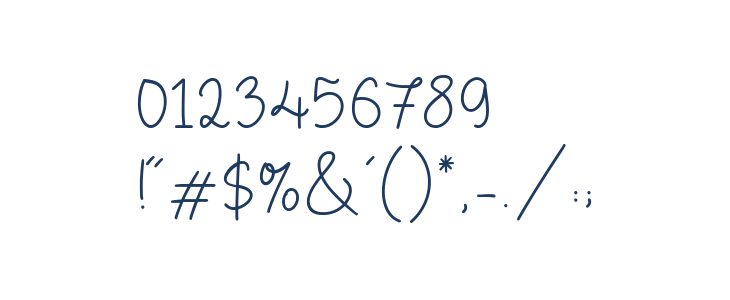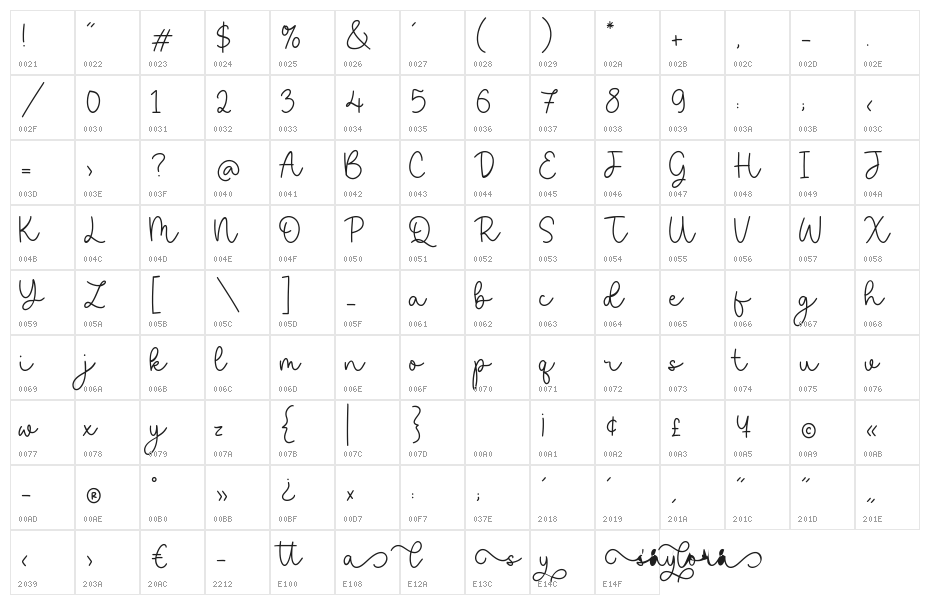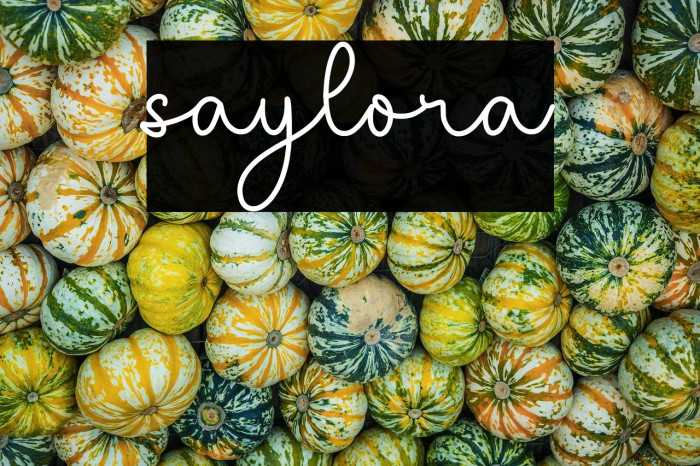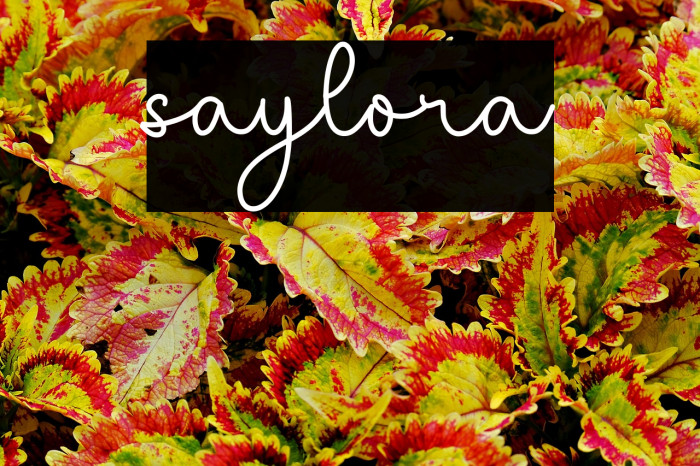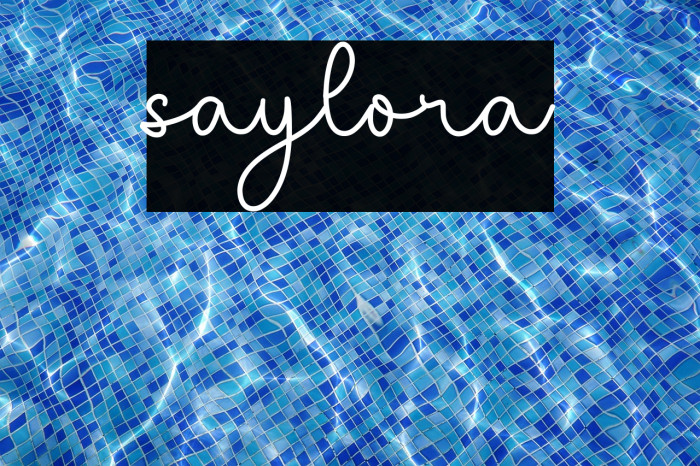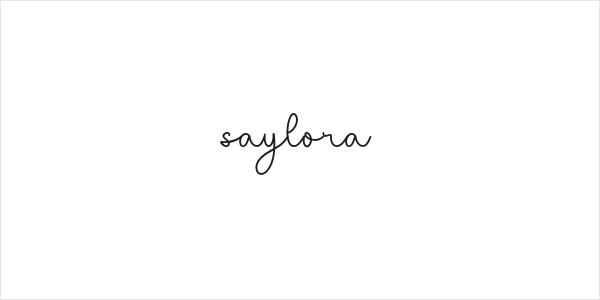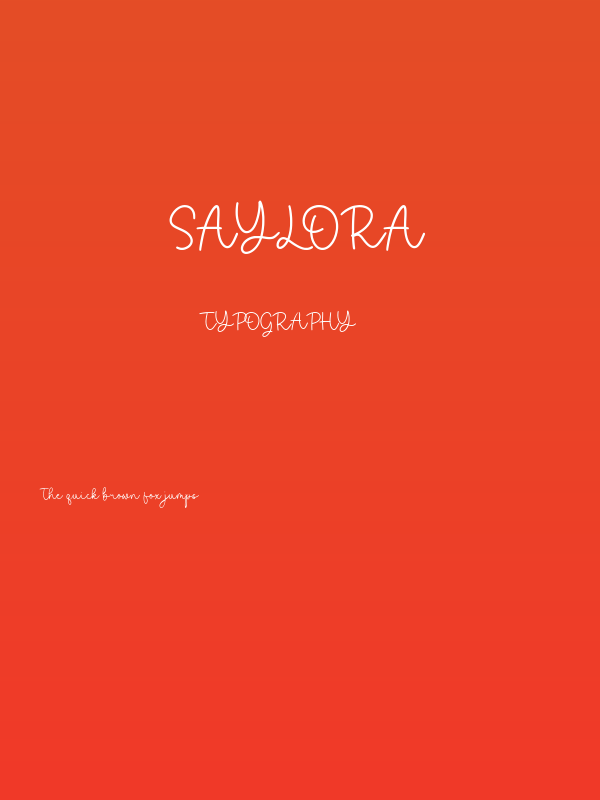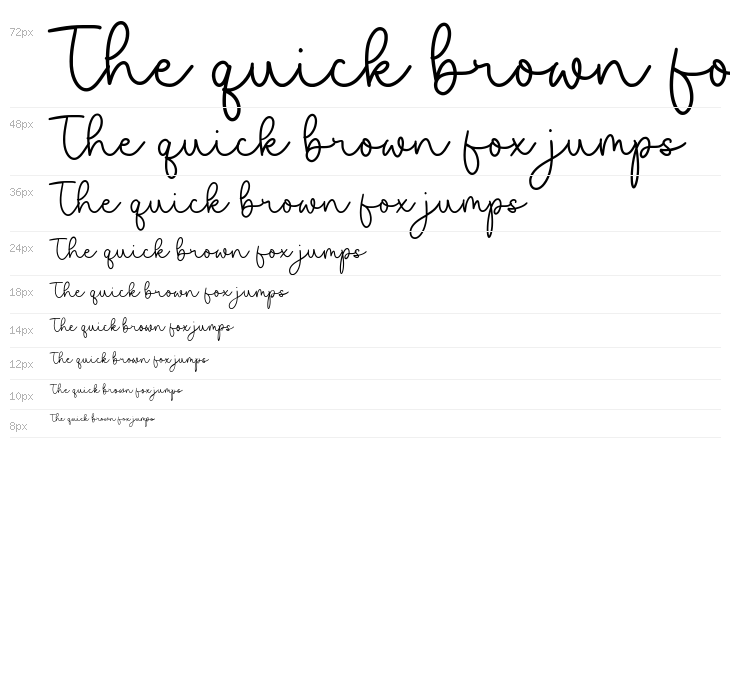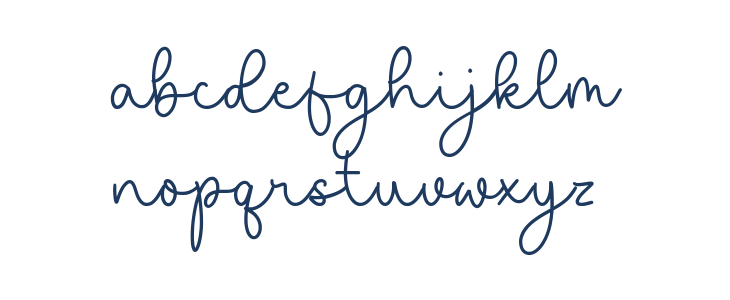
saylora Font
saylora Description
This font features a playful and casual handwritten style, characterized by its fluid and continuous strokes. The letters are slightly slanted, giving it an informal and approachable feel. Uppercase letters maintain a consistent height, while lowercase letters exhibit a charming looped design, especially noticeable in characters like 'g', 'j', and 'y'. The numbers are rounded and maintain the same playful aesthetic, ensuring readability while adding a touch of whimsy. Special characters are integrated seamlessly, maintaining the overall style. This font is perfect for projects that require a personal touch, such as invitations, greeting cards, or branding for creative businesses.
| Proposed Projects | Ideal for invitations, greeting cards, personal branding, and creative projects. |